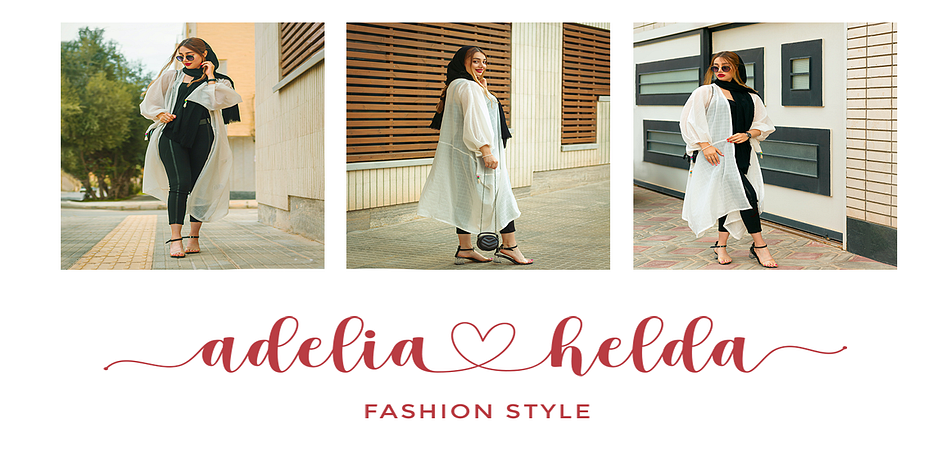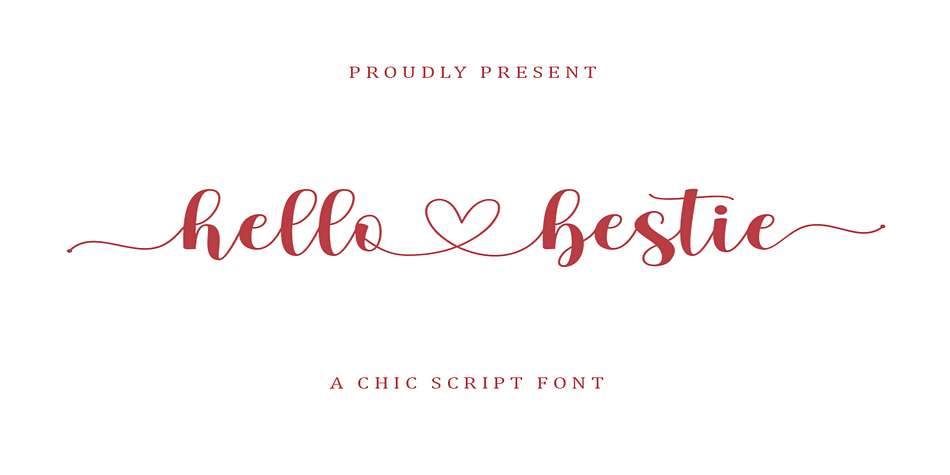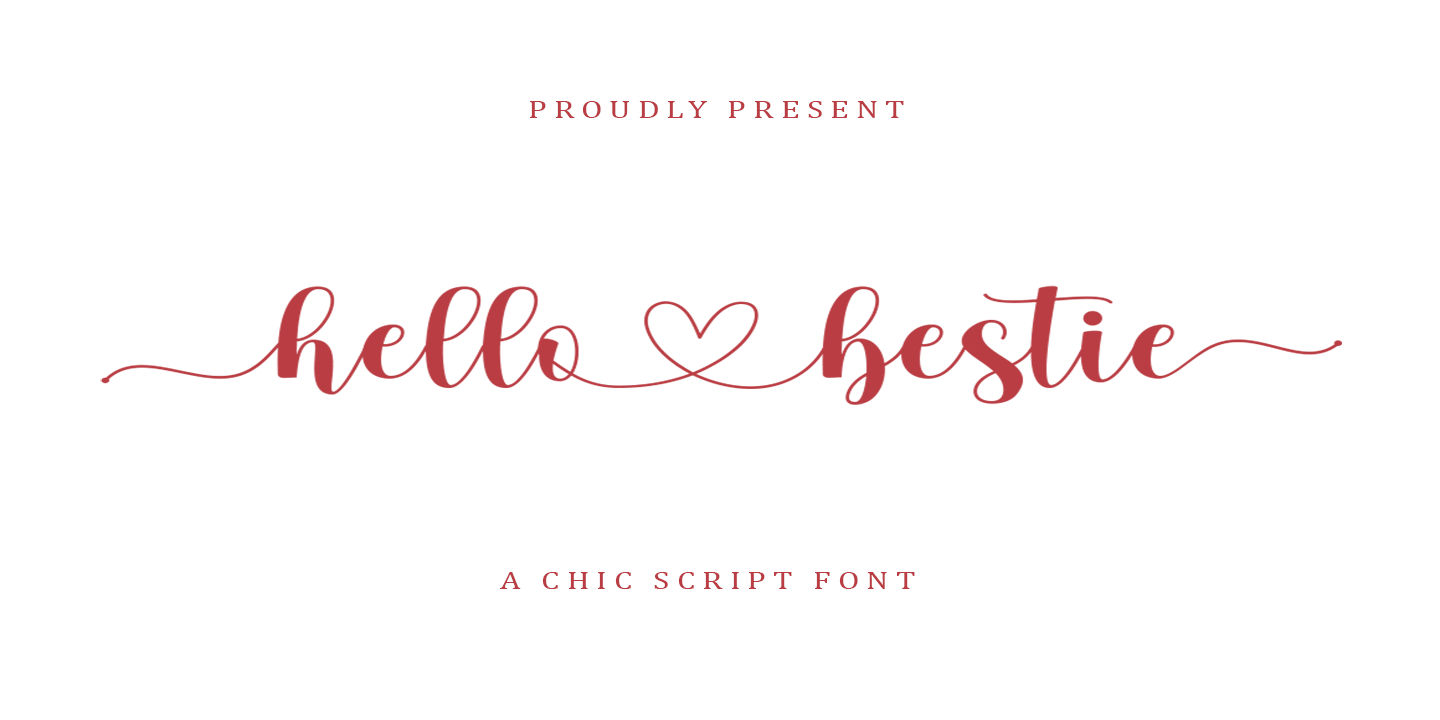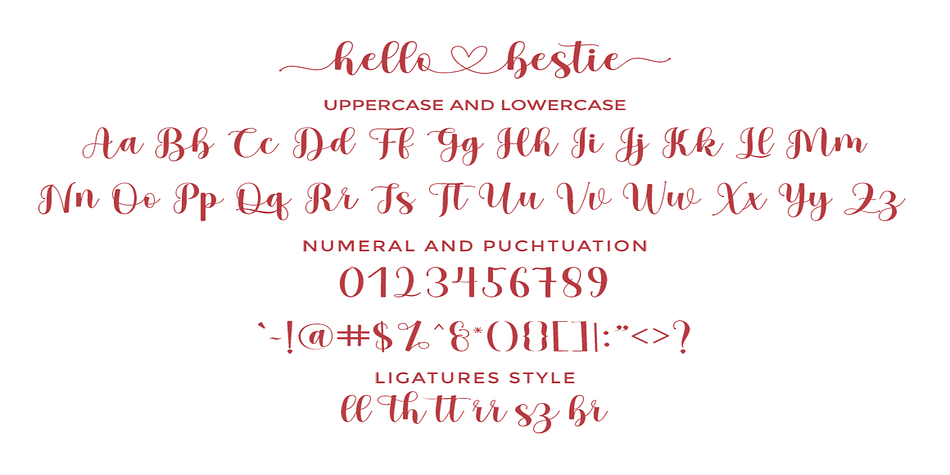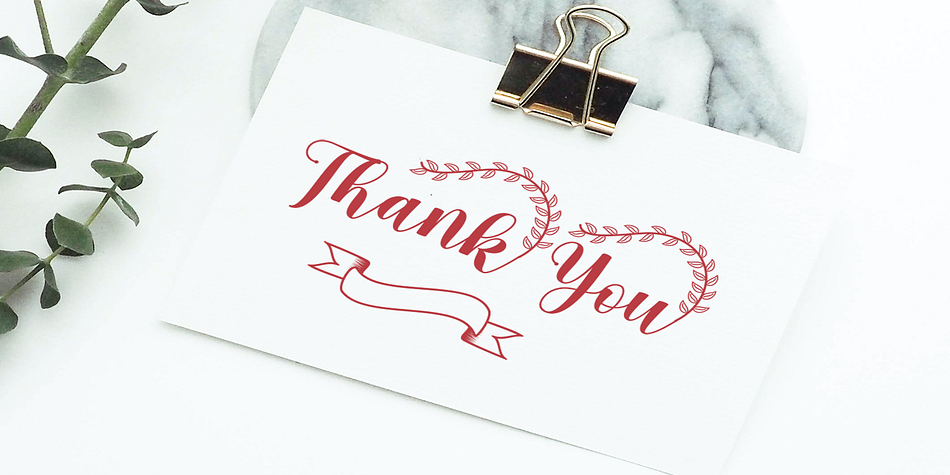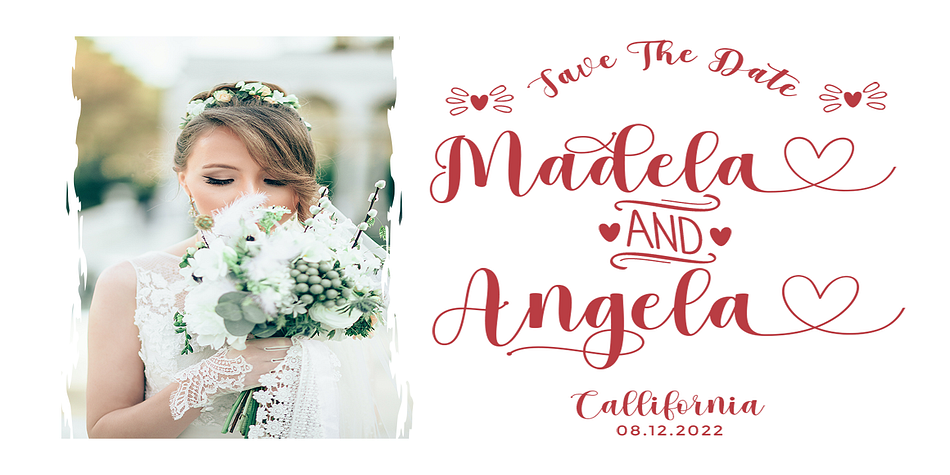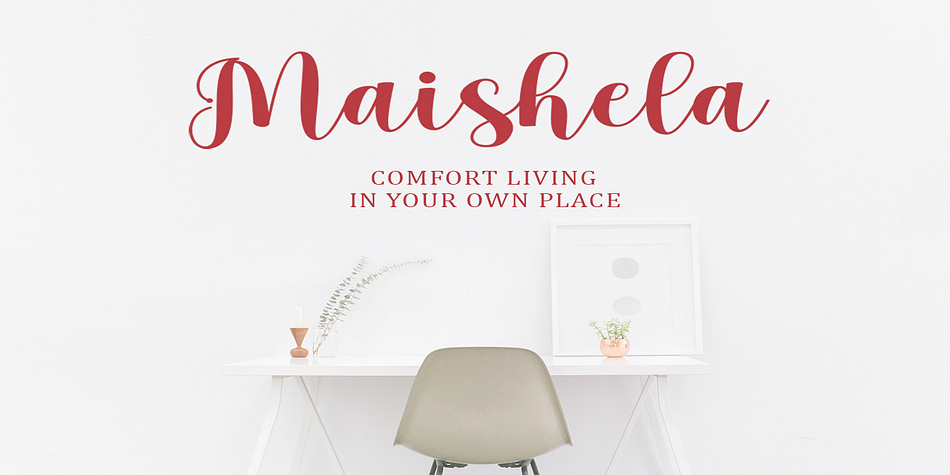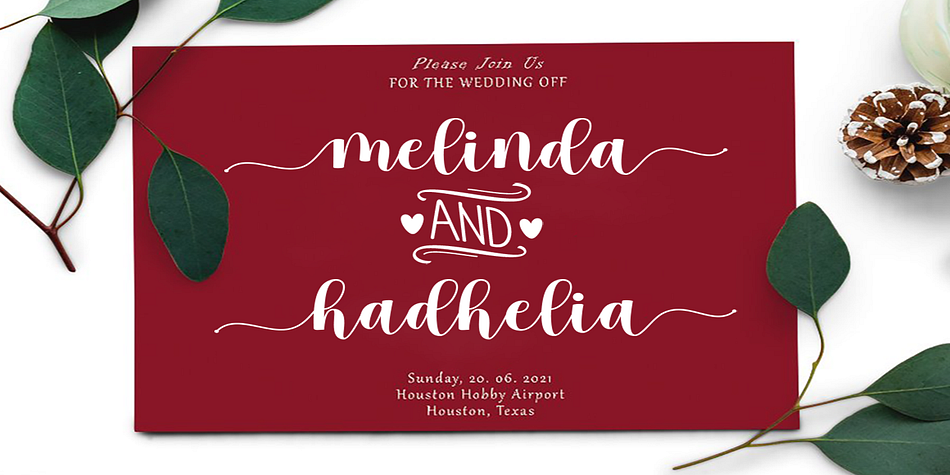
Hello Bestie
Hello Bestie is a modern calligraphy font family published by HRZ Studio.
Hello Bestie Script including alternative characters, ligatures and various language support. With the OpenType feature with an alternative style and elegant binder. The OpenType feature does not function automatically, but you can access it manually and for the best results needed for your creativity in combining these Glyph variations. and also a touch of ornament makes this font look elegant.